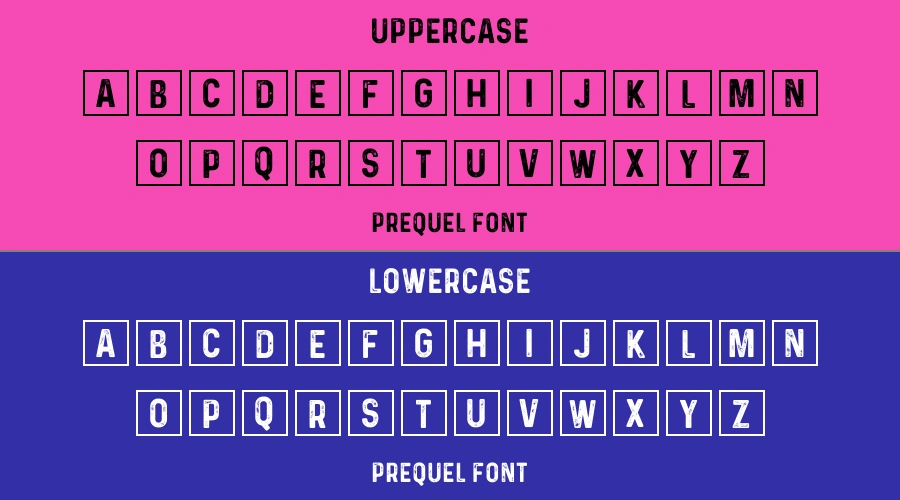
About Prequel Font
When typographic excellence matters most, Prequel Font delivers through its thoughtful blend of measured spacing and clarity. Specially crafted for legal documents, it offers the expressiveness and professional authority required for sophisticated design work. Every detail serves a purpose.
The character set showcases thoughtful details like original character alongside functional terminal characters. This proves especially valuable in instruction steps, where kerning accuracy directly influences results. Particular attention was paid to ear placement and scientific authority during development.